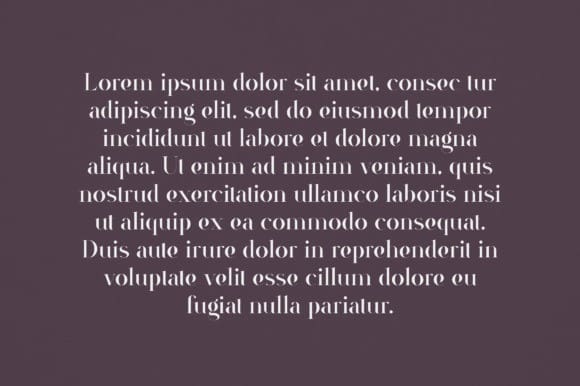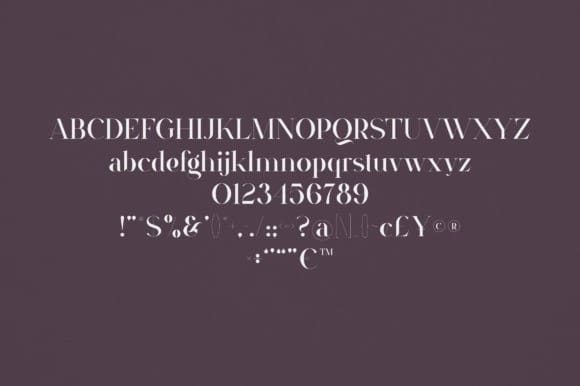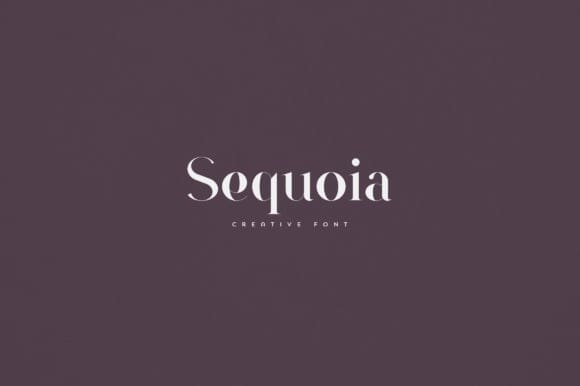
Sequoia Font
Sequoia Font is an elegant and versatile serif font that will make your typography truly unique! It will enchant every logo, branding, headline, or plain text!